The font im looking for is BORDER if it was ever conceived in modern digital format.
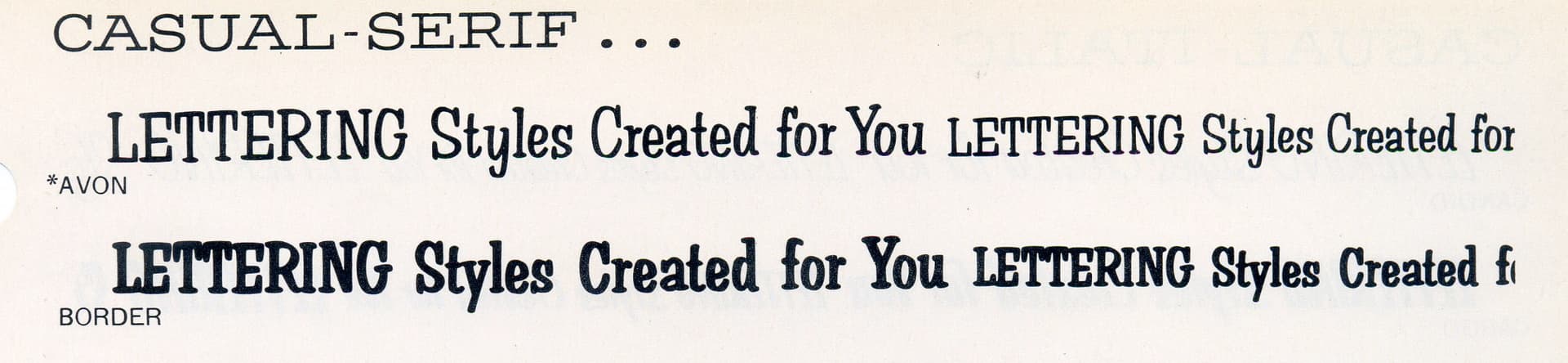
That appears to be a bold version of Avon, from URW, but MyFonts list only one weight.
It also appears in the VGC Typositor catalog of 1972 as fonts F-31.
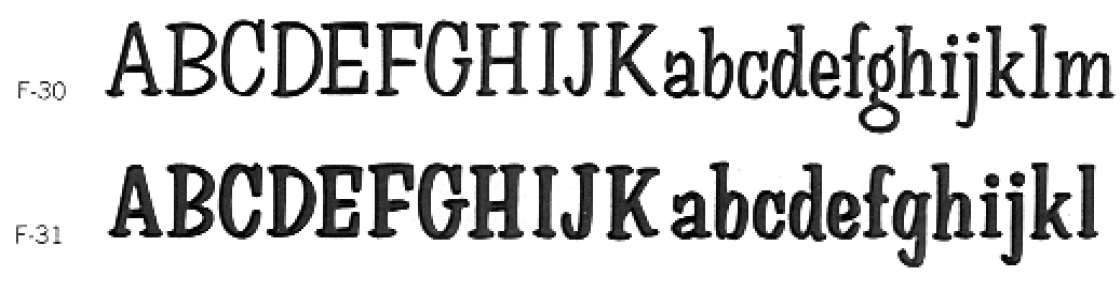
It seems alot of this old school typefaces never made it to the digital realm.
That Avalon font is about as good as s it gets.